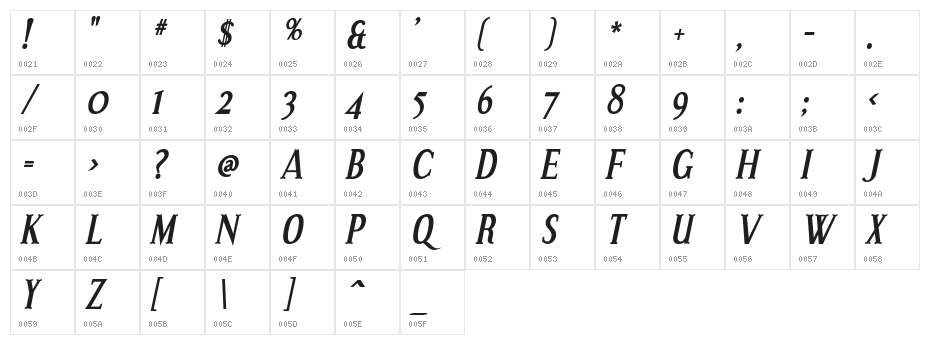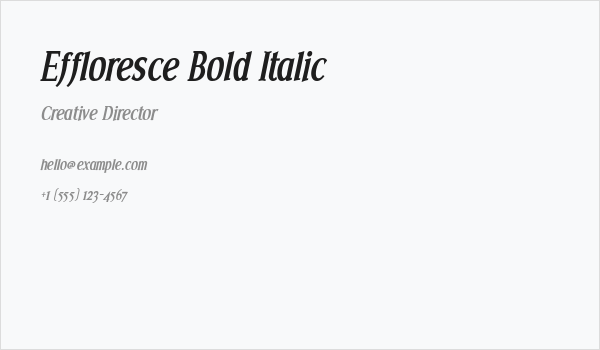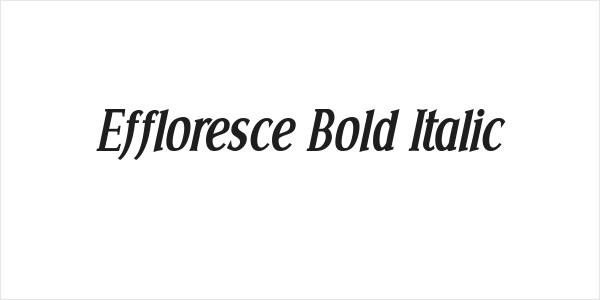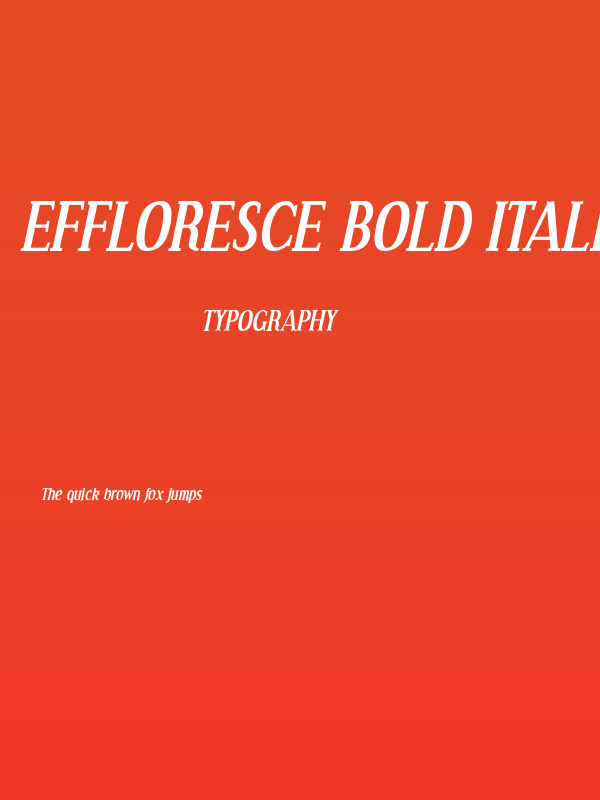
Effloresce Bold Italic Font
Effloresce Bold Italic Description
This font features a bold and italicized style, combining a sense of strength with elegance. The characters are slightly slanted, giving a dynamic and forward-moving appearance. The strokes are thick, providing a strong presence, while the serifs add a touch of classic sophistication. The overall design is balanced, with consistent weight across all characters, ensuring readability and visual appeal. The numbers and special characters maintain the same bold and italic characteristics, making them cohesive with the alphabet. This font is suitable for making a statement while retaining a sense of traditional style.
| Proposed Projects | Ideal for book covers, branding, headlines, and editorial design. |